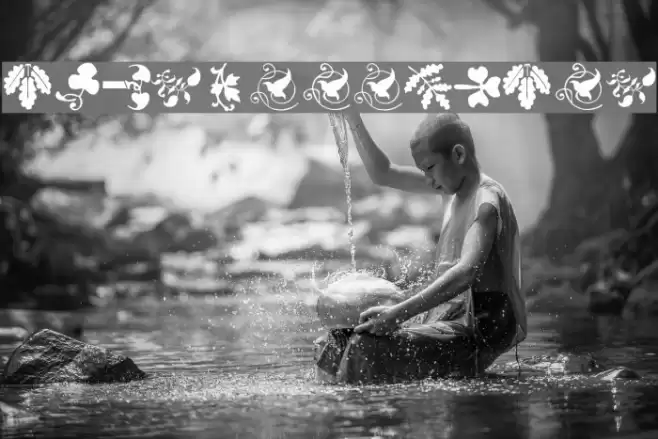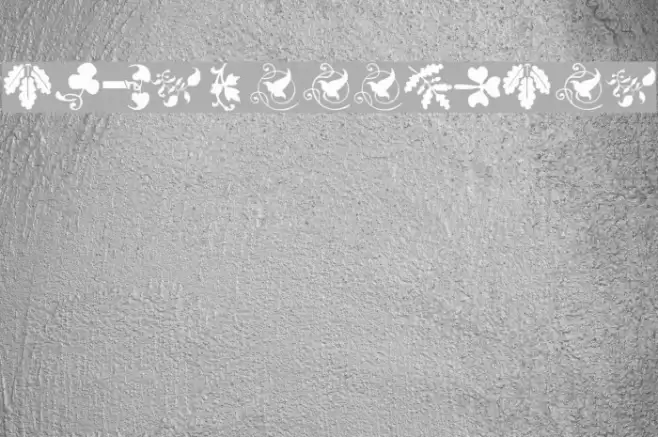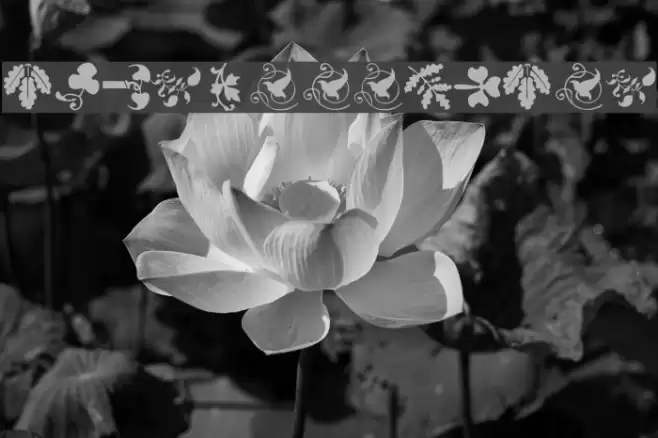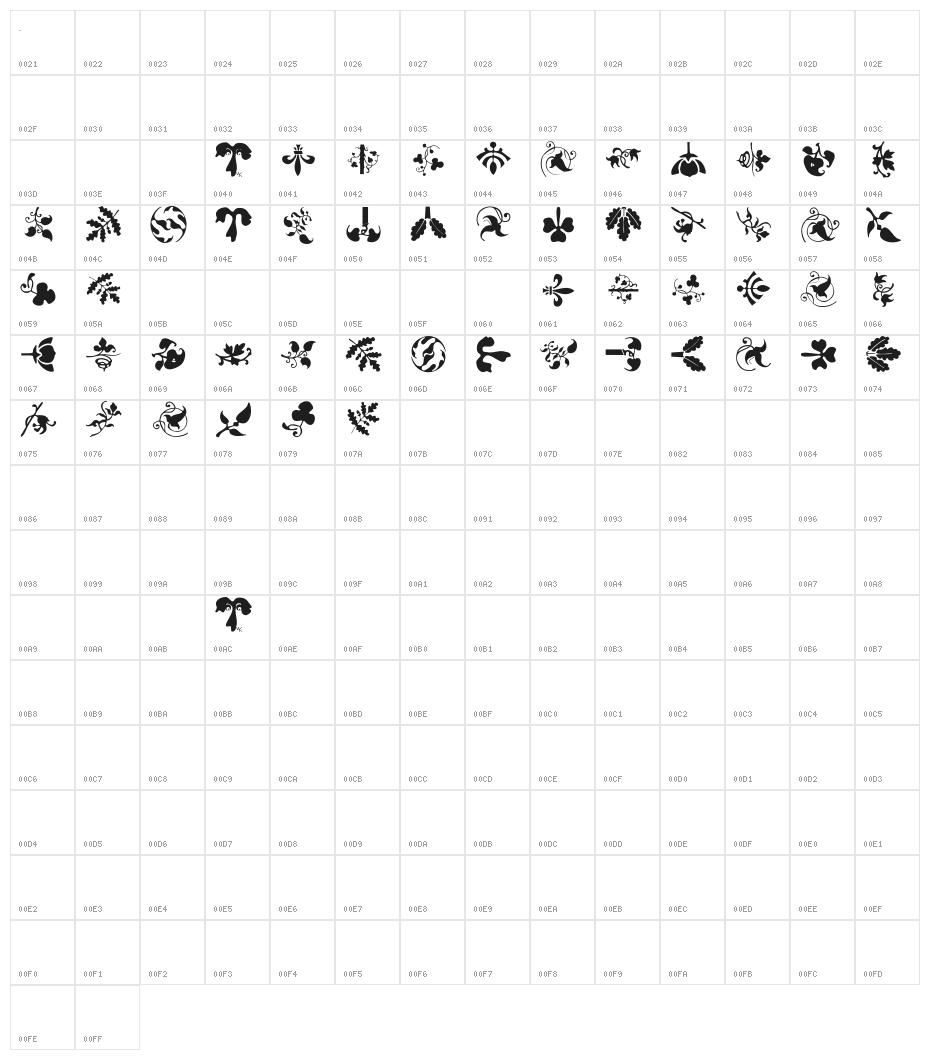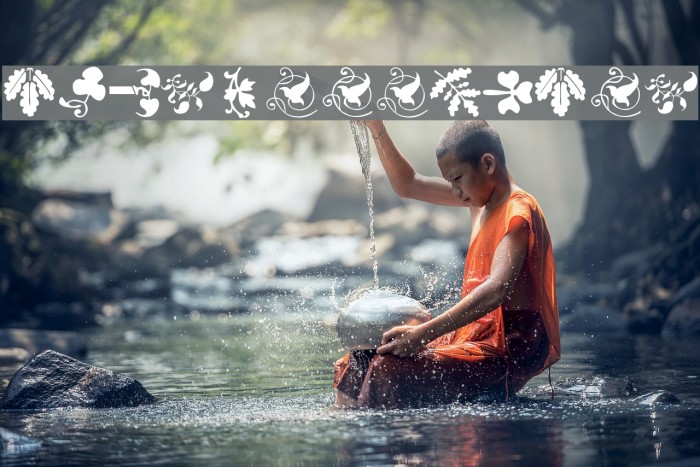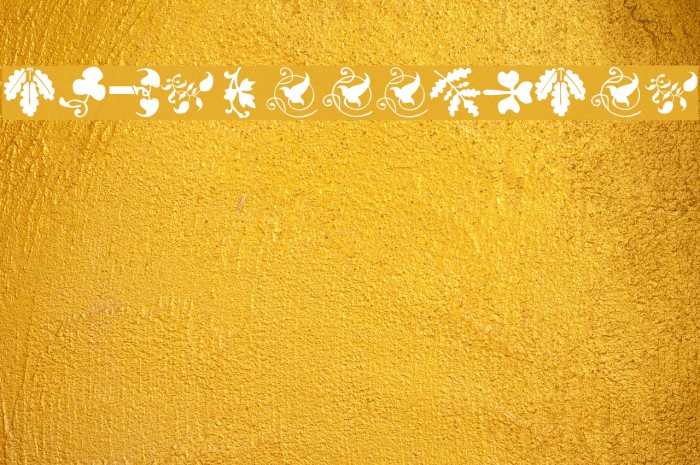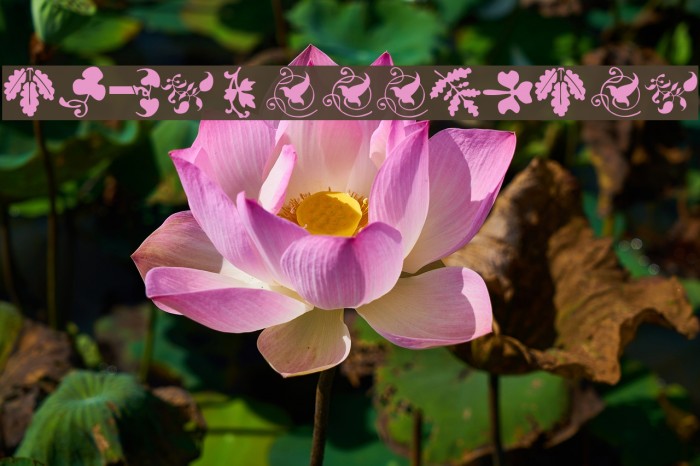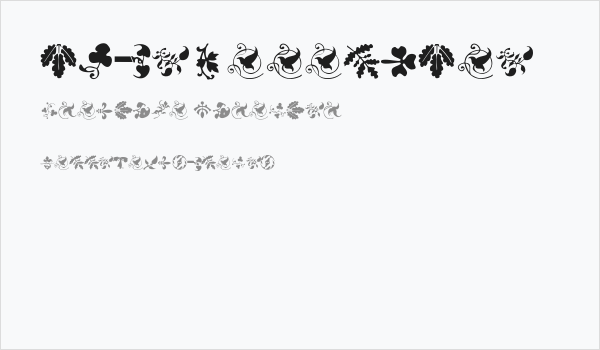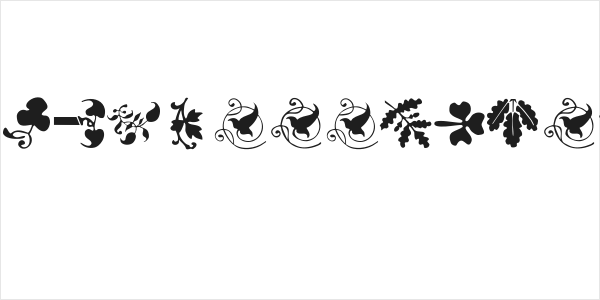
TypoJewelsTwo Font
TypoJewelsTwo Description
A decorative dingbat font featuring intricate floral and ornamental motifs, with each character represented by a unique flourish or botanical design. The glyphs are highly stylized, with a mix of bold and delicate strokes, evoking a vintage or baroque aesthetic.
Ornamental dingbat font with floral and botanical motifs from Uncategorized fonts.
- Proposed Projects: Invitations, certificates, decorative borders, vintage-themed designs, scrapbooking, packaging, and ornamental dividers.
- Overall Style: Decorative, Vintage, Ornamental
- Use Case: Borders, embellishments, decorative accents